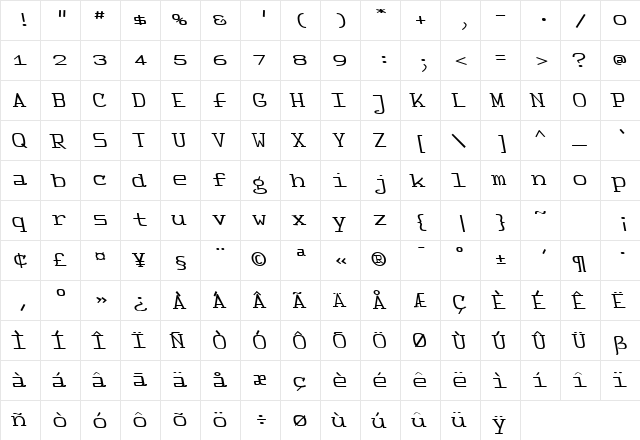
FeggoliteHatched Regular
Design Context for FeggoliteHatched Typeface
FeggoliteHatched is a composed and adaptable typeface that performs quietly and consistently across a wide range of design contexts.